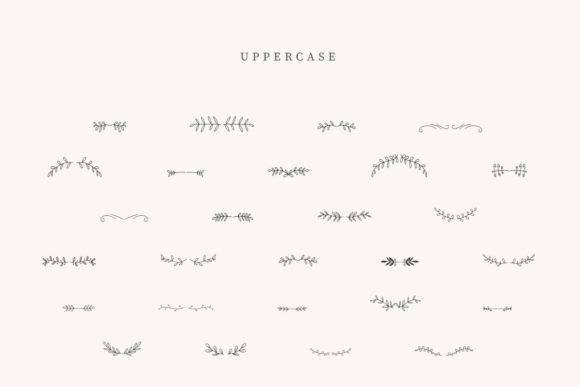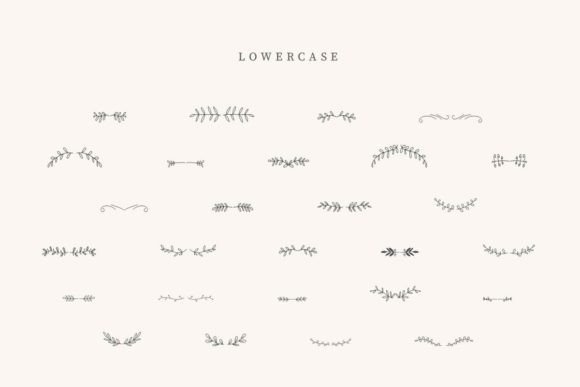
Coffe Divider Font: Elevate Your Designs with Elegant Vintage Charm
Are you a designer or crafter looking for a unique and inspiring font to add a touch of elegance and vintage charm to your creations? Look no further than the Coffe Divider font. This beautiful dingbat font is overflowing with floral elegance, seamlessly encapsulating the essence of vintage craftsmanship. With its unique design, Coffe Divider is the perfect choice to enhance your creativity and embellish your decorations, elegantly bridging the gap between artistry and functionality.
The Beauty of Coffe Divider Font
The Coffe Divider font is a masterpiece of vintage floral design, featuring intricate and delicate illustrations that evoke a sense of nostalgia and sophistication. This dingbat font is perfect for designers and crafters who want to add a touch of elegance and whimsy to their creations. Whether you’re working on a new project or looking to refresh an existing design, Coffe Divider is sure to inspire your creativity and take your work to the next level.
Unique Design and Versatility
One of the standout features of the Coffe Divider font is its unique design, which combines floral patterns and vintage elements to create a truly one-of-a-kind look. This font is incredibly versatile, making it perfect for a wide range of applications, from decorative designs and crafts to branding and marketing materials. Whether you’re creating invitations, greeting cards, or social media graphics, Coffe Divider is sure to add a touch of elegance and sophistication to your work.
With the Coffe Divider font, the creative possibilities are endless. Imagine being able to transform ordinary designs into extraordinary creations, simply by adding a touch of vintage floral elegance. This font is perfect for designers and crafters who want to push the boundaries of their creativity and produce truly unique and eye-catching work. Whether you’re working on a DIY project or a client brief, Coffe Divider is sure to inspire your imagination and help you achieve your design goals.
Coffe Divider is a font that is specifically designed with designers and crafters in mind. Its unique and elegant design makes it perfect for a wide range of applications, from digital design to handmade crafts. Whether you’re a professional designer or a hobbyist crafter, Coffe Divider is sure to become a valuable addition to your toolkit. With this font, you’ll be able to create beautiful and eye-catching designs that showcase your creativity and skill.
Key Features of Coffe Divider Font
- Vintage floral design: Coffe Divider features a beautiful vintage floral design that is sure to add a touch of elegance and sophistication to your creations.
- Dingbat font: This font is a dingbat font, making it easy to use and incorporate into your designs.
- Unique and elegant: Coffe Divider has a unique and elegant design that is sure to inspire your creativity and enhance your work.
- Versatile: This font is incredibly versatile, making it perfect for a wide range of applications, from decorative designs to branding and marketing materials.
In conclusion, the Coffe Divider font is a beautiful and inspiring font that is sure to elevate your designs and add a touch of elegance and vintage charm to your creations. With its unique design, versatility, and endless creative possibilities, Coffe Divider is the perfect choice for designers and crafters who want to produce truly unique and eye-catching work. So why wait? Download Coffe Divider today and experience the beautiful blend of elegance and vintage charm for yourself.
Get Creative with Coffe Divider
Ready to get creative with Coffe Divider? Here are a few ideas to get you started:
- Use Coffe Divider to create beautiful and elegant invitations for special occasions, such as weddings and birthdays.
- Add a touch of vintage charm to your social media graphics and branding materials with this unique font.
- Use Coffe Divider to create stunning decorative designs, such as wall art and home decor.
- Incorporate Coffe Divider into your handmade crafts, such as scrapbooking and card making.
Whatever your creative project, Coffe Divider is sure to be a valuable addition to your toolkit. So why wait? Download Coffe Divider today and start experiencing the beautiful blend of elegance and vintage charm for yourself.